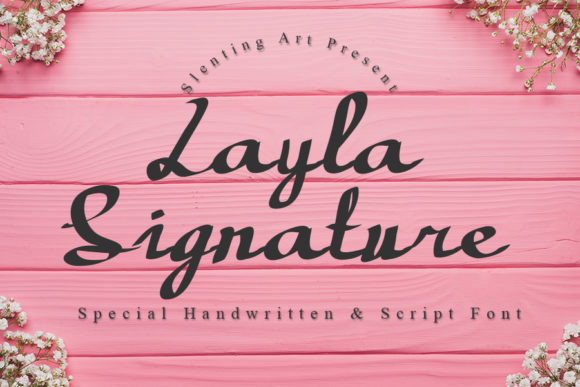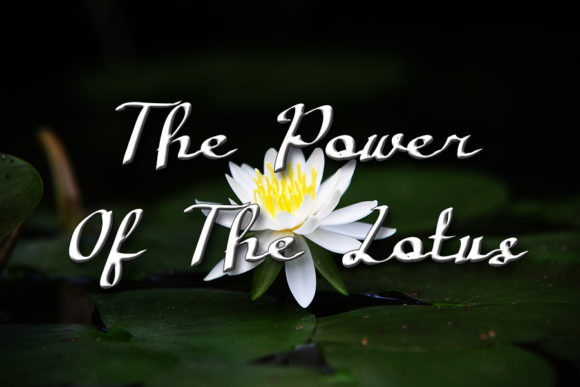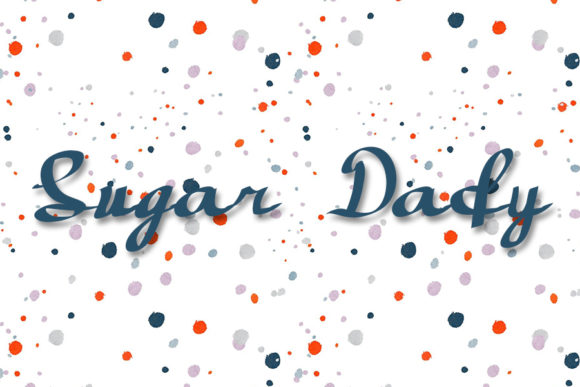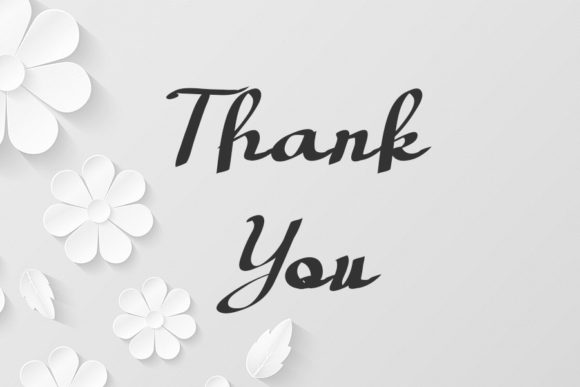
Layla Signature Font
About Layla Signature Font
Layla Signature is a dazzling script font. This font is neatly crafted and highly detailed. Whatever the topic, this font will be a wonderful asset to your font library, as it has the potential to enhance any creation.